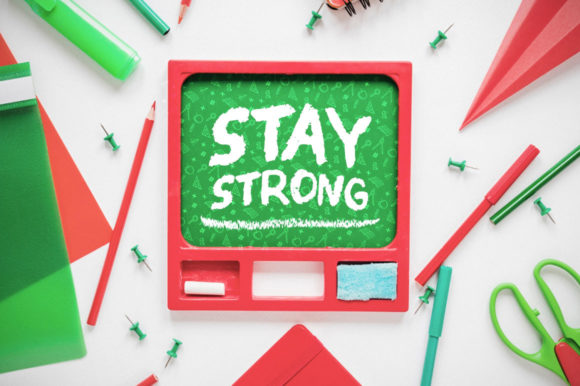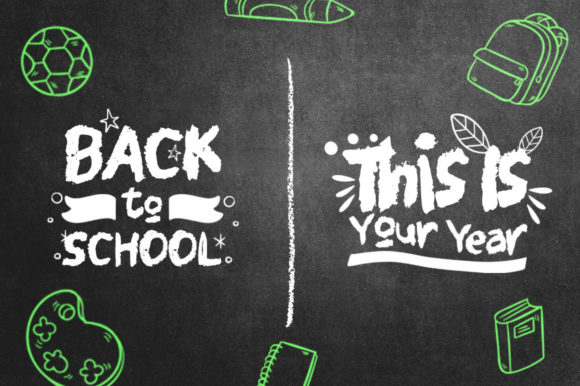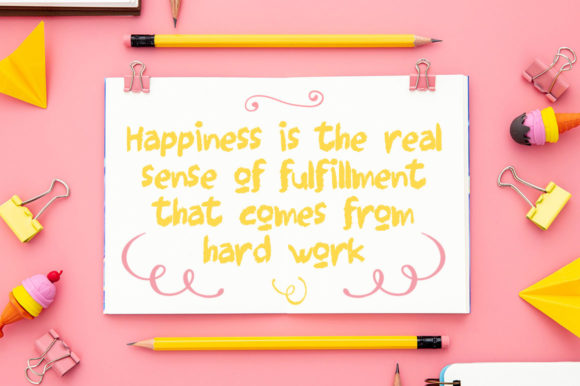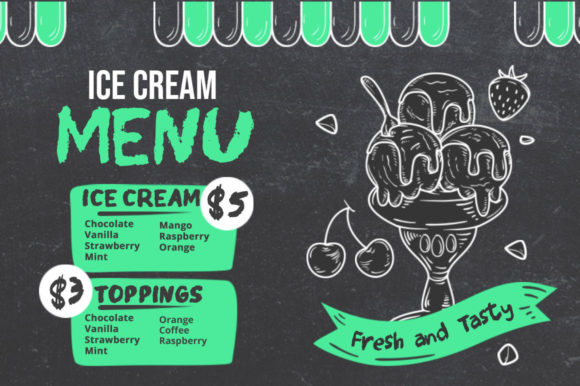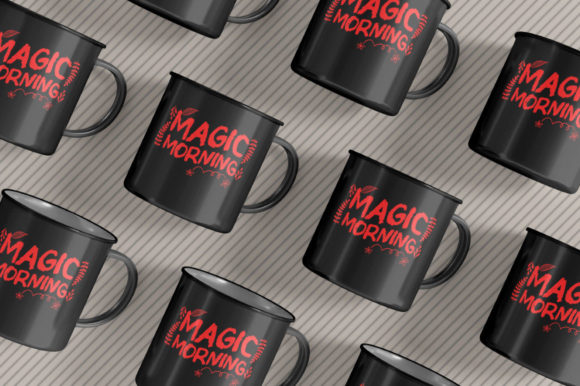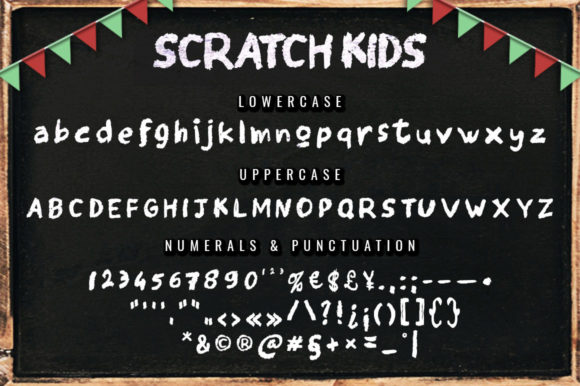
Fonts play a crucial role in design, and the Scratch Kids Font font is a typeface that brings both character and versatility to any project. Whether you’re working on a branding project, a website, or a print design, the Scratch Kids Font font offers a unique style that can elevate your work.
Scratch Kids is a cute and friendly display font.
It is suitable for fun stuff such as logos, invitation, banner, social media, posters and more .
• ✅ High-quality typeface designed for professional use
• ✅ Includes a wide range of glyphs and characters
• ✅ Ideal for logos, branding, websites, and print
The Scratch Kids Font font is more than just a typeface – it’s a design tool that helps you communicate your message with style and clarity. Its unique character set and versatile design make it suitable for a wide range of applications, from elegant invitations to bold headlines.
With its carefully crafted letterforms and balanced proportions, the Scratch Kids Font font ensures readability and visual appeal across all mediums.
The Scratch Kids Font font stands out with its unique design, exceptional readability, and versatility across various design applications.